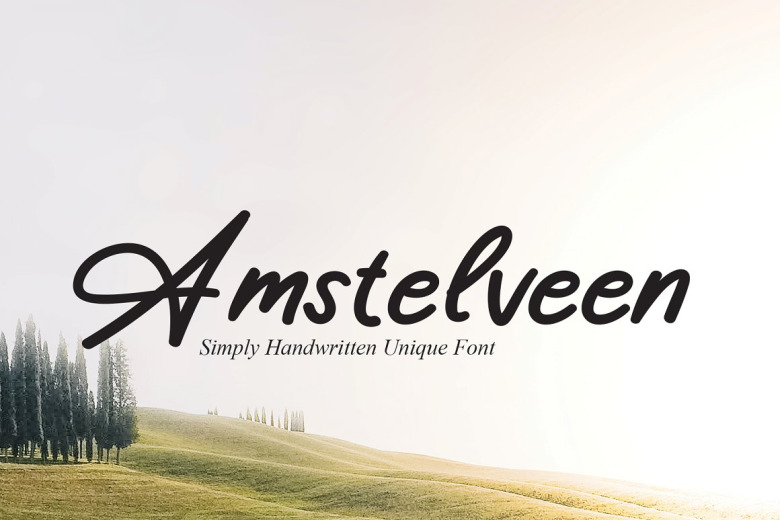
Amstelveen Font
Amstelveen, a flowing handwritten script, exudes an elegant flair ideal for cherished creations. Its distinctively timeless traces inspire infatuation; craft spectacular designs employing this uniquely charming typeface.
Amstelveen Handwritten Script Font